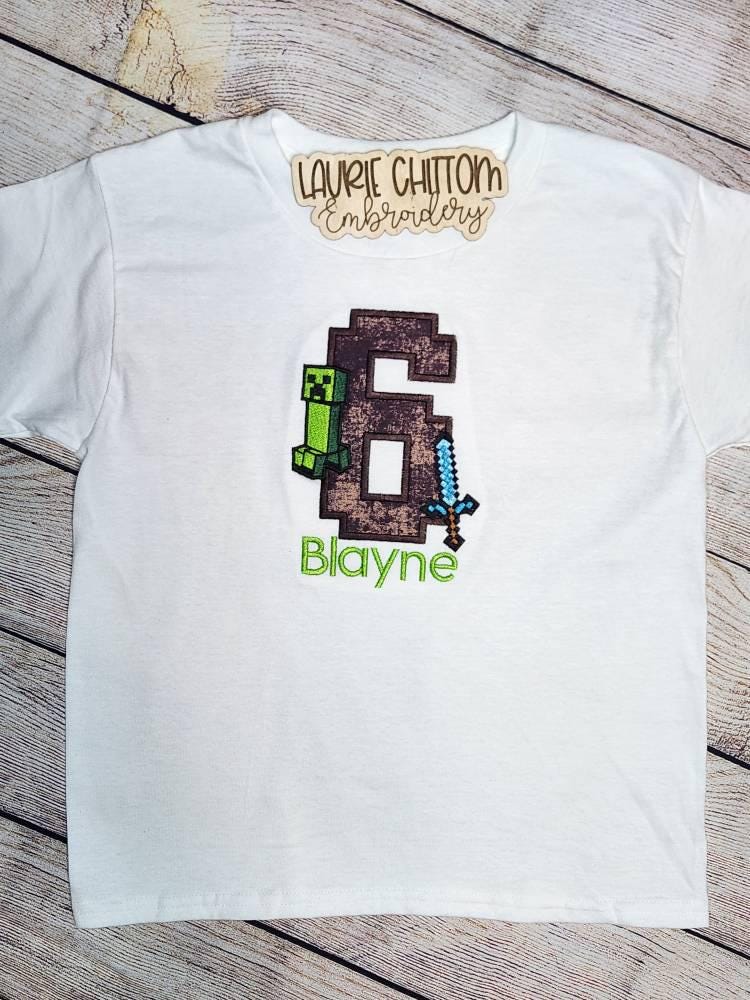
Miner Bricks pixel Font alphabet applique machine embroidery design, monogram, brick letters playful great for kids and boys, BX included!
I just needed the number 6 for this project but I'm sure I'll use more characters in the future. Stitched out great!